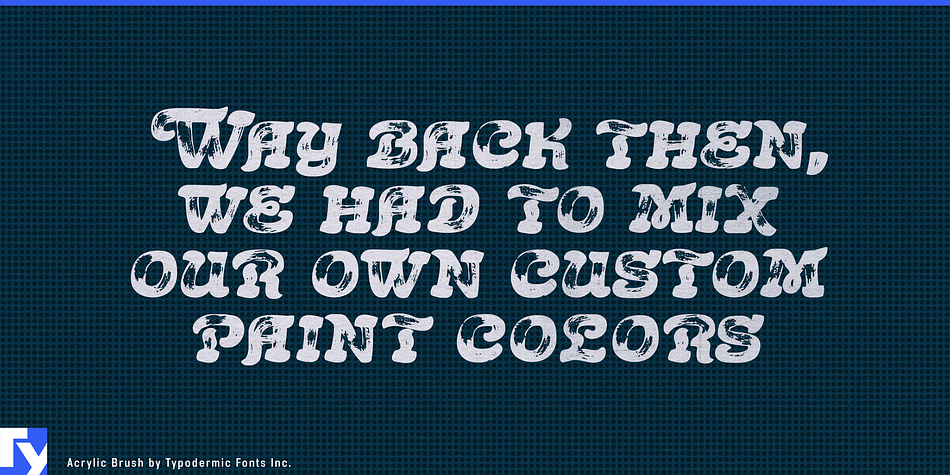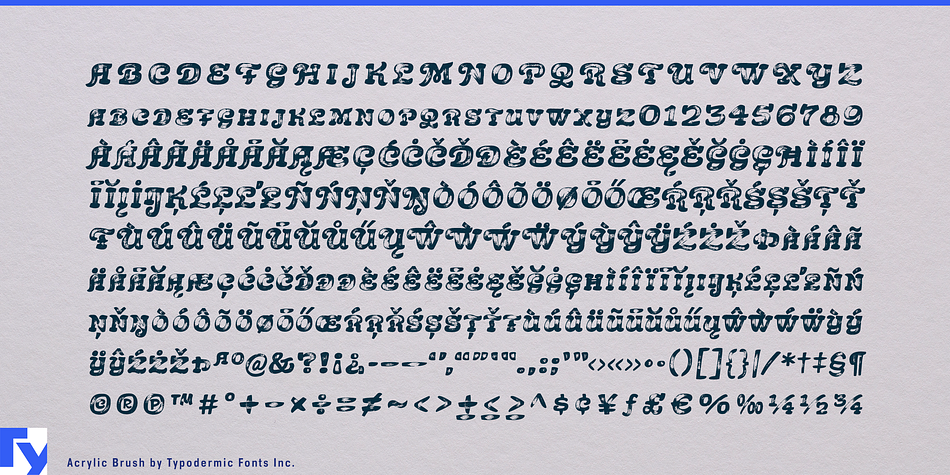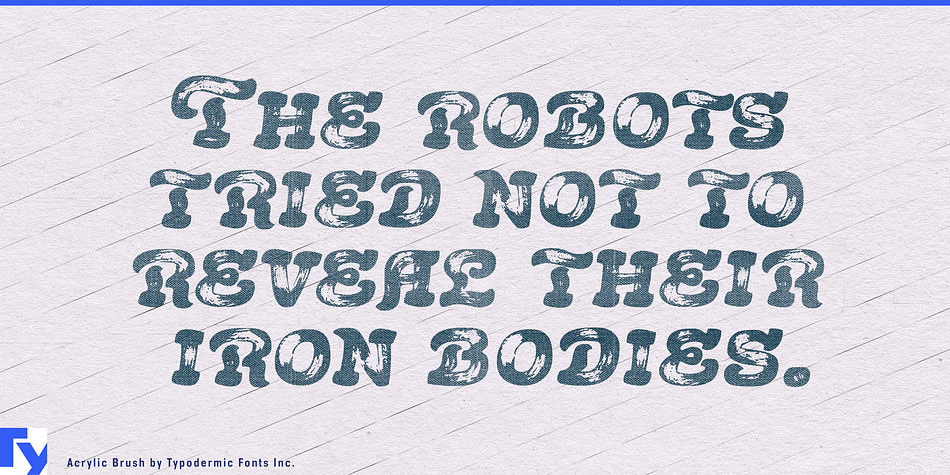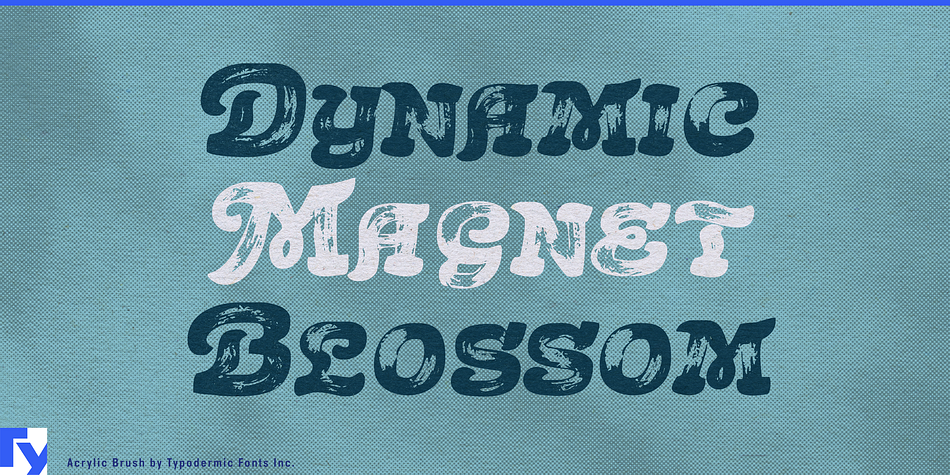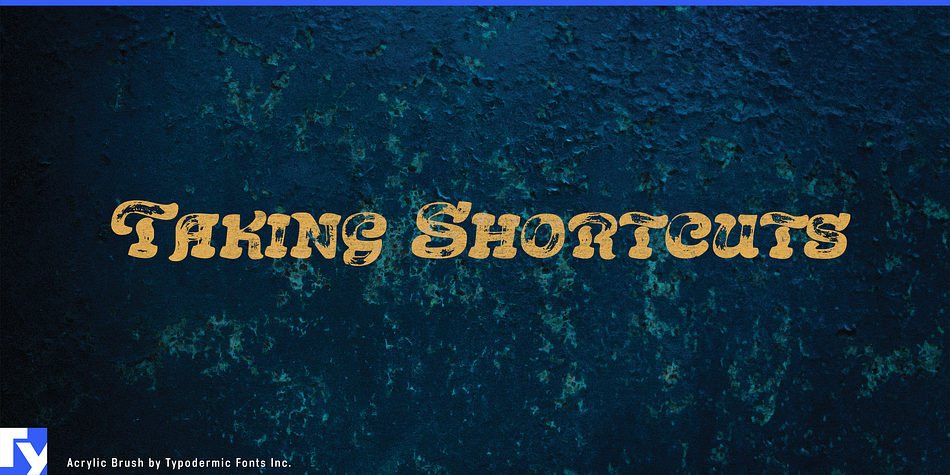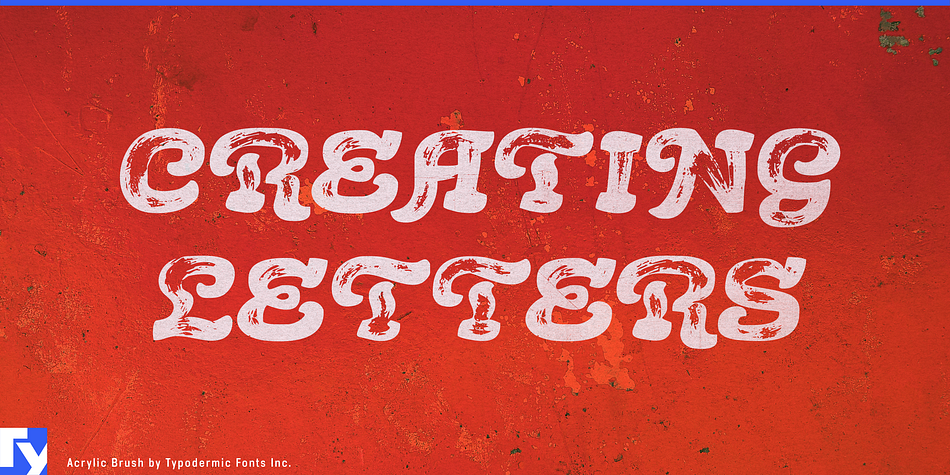
Acrylic Brush is a grunge and brush script font published by Typodermic Fonts Inc.
Acrylic Brush is a disconnected small-caps script with a worn paint effect. In OpenType savvy applications, most double letter combinations are automatically replaced with ligatures for a more natural look.